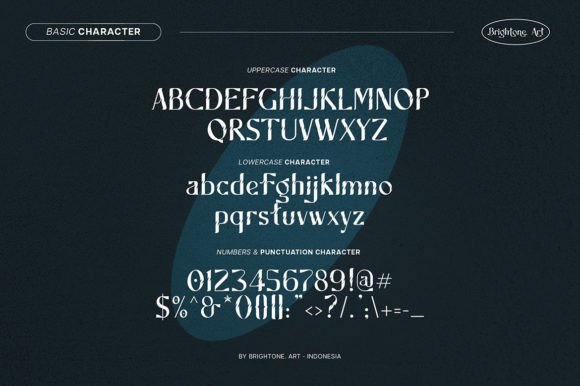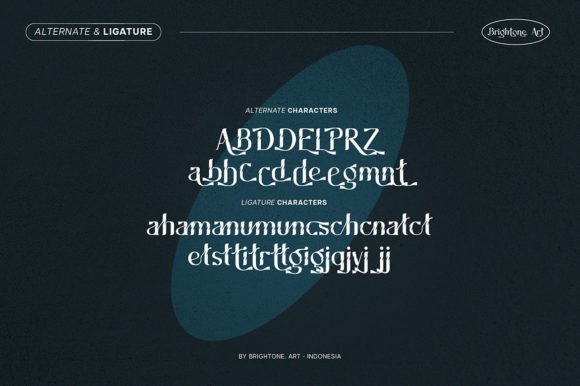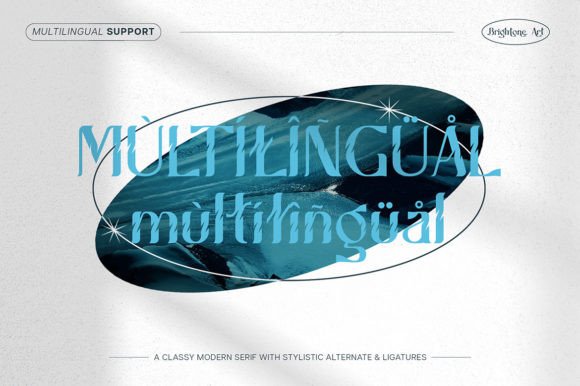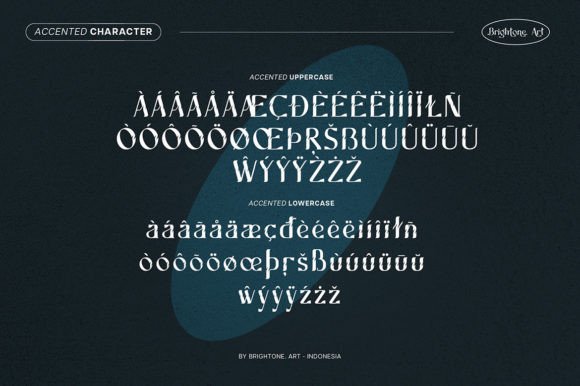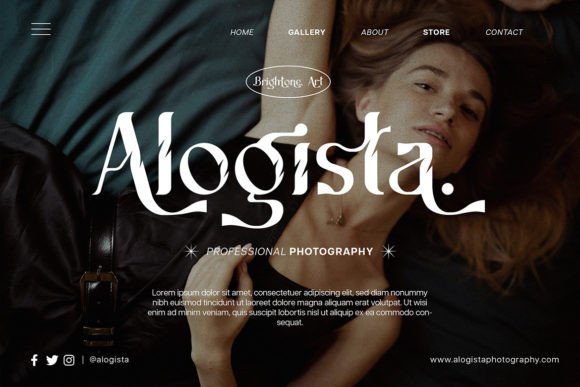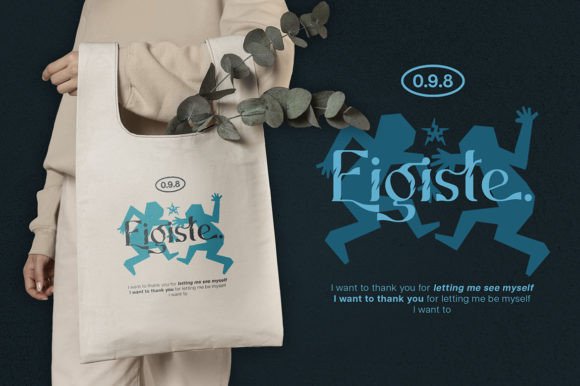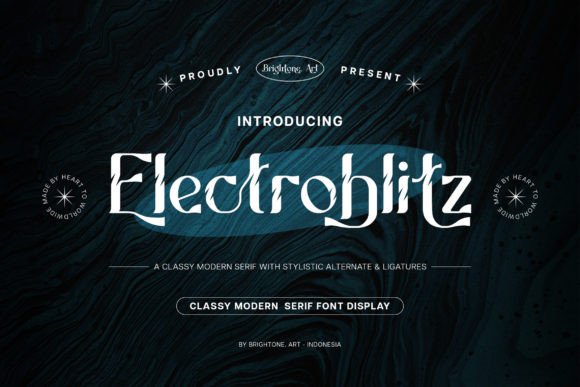
Introducing Electroblitz Font: Elevate Your Designs with Modern Serif Elegance
In the world of typography, fonts play a pivotal role in shaping the visual identity of a brand or creative project. Among the myriad of fonts available, Electroblitz Font stands out as a distinctive and versatile choice for designers and crafters alike. This modern serif font, infused with unique glyph styles, is not just a typographical choice but a statement piece that can elevate your designs to new heights.
What Makes Electroblitz Font Special?
Electroblitz is characterized by its modern serif design, which brings a fresh and contemporary feel to any project. The Electroblitz font is not just about aesthetics; it’s also about functionality and versatility. It is suitable for a wide range of applications, including logos, labels, packaging, stickers, branding, and more. This adaptability makes it a valuable asset for designers looking to create cohesive and impactful visual communications.
One of the key features that set Electroblitz apart is its PUA (Private Use Area) encoding. This means that users can access all the glyphs and swashes easily, without the hassle of navigating through complex character maps. The PUA encoding ensures that the creative process is streamlined, allowing designers to focus on bringing their vision to life rather than getting bogged down in technicalities.
Applications of Electroblitz Font
The Electroblitz font can be used in a multitude of design projects, including:
• Logos: Create memorable and impactful logos that stand out in the digital and print landscape.
• Labels: Design eye-catching labels for products, events, or any item that requires a touch of elegance and modernity.
• Packaging: Elevate product packaging with sophisticated typography that communicates the brand’s personality.
• Stickers: Add a professional and stylish touch to stickers for marketing, events, or personal use.
• Branding: Develop a consistent brand identity with a font that exudes professionalism and creativity.
Why Choose Electroblitz Font?
Choosing Electroblitz font for your design projects comes with several benefits:
• Uniqueness: Stand out from the crowd with a font that is both modern and distinctive.
• Versatility: Use it across various design projects, from digital assets to print materials.
• Ease of Use: Thanks to PUA encoding, accessing glyphs and swashes is straightforward, saving you time and effort.
• Professionalism: Impress your clients or audience with high-quality, professional typography.
Tips for Using Electroblitz Font Effectively
To make the most out of Electroblitz font, consider the following tips:
• Mix and Match: Experiment with different glyphs and swashes to create a unique look that suits your project.
• Pairing: Try pairing Electroblitz with other fonts to create contrast and add depth to your designs.
• Hierarchy: Use varying font sizes and weights to establish a visual hierarchy that guides the viewer’s eye.
Electroblitz Font is more than just a typographical choice; it’s a creative tool that can transform your designs. With its modern serif elegance, versatile applications, and user-friendly PUA encoding, Electroblitz is an excellent addition to any designer’s toolkit. Whether you’re working on a branding project, crafting beautiful labels, or creating engaging content, Electroblitz font is sure to leave a lasting impression.
So, why settle for ordinary when you can create something extraordinary with Electroblitz Font? Dive into the world of modern serif typography and discover the difference it can make in your designs.